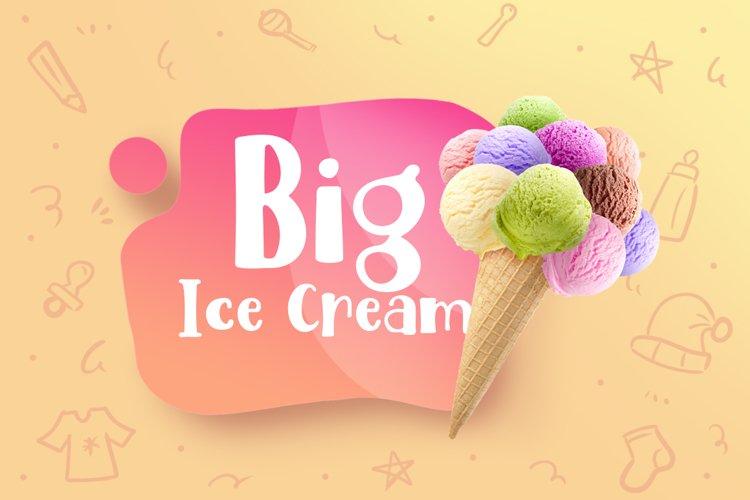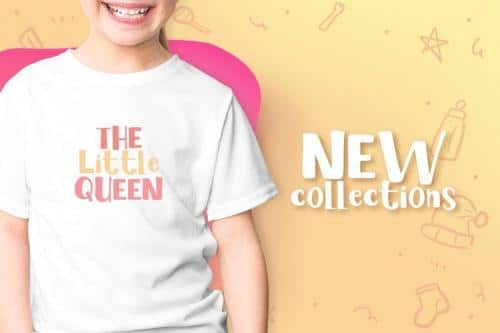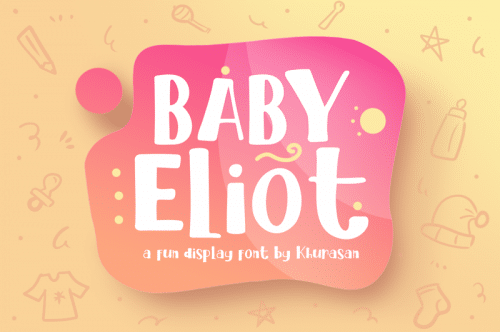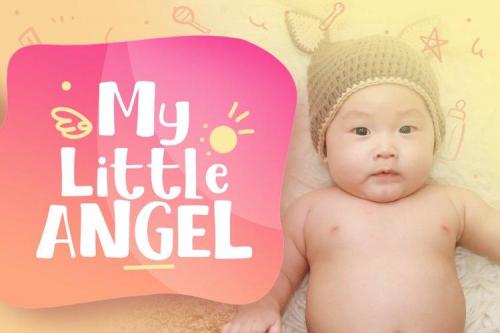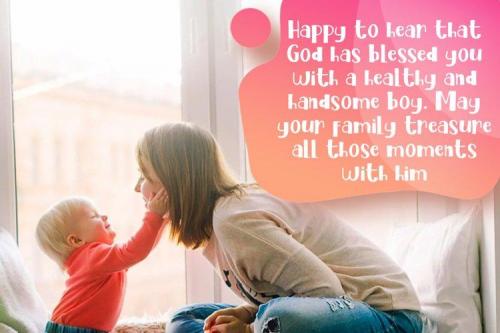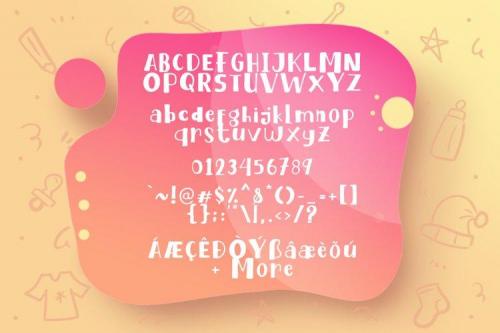
The Baby Eliot is a fun display font, fresh & modern style. Baby Eliot Font suitable for logo, branding, greeting card, poster and any design that you create.